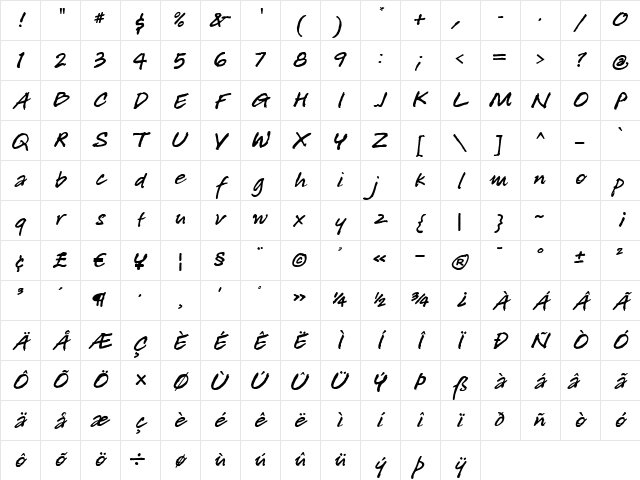
P22 Freely Regular
Foundry: P22 / Sherwood
Designer: Ted Staunton
Design Context for P22 Freely
P22 Freely is a composed and adaptable typeface that performs quietly and consistently across a wide range of design contexts.